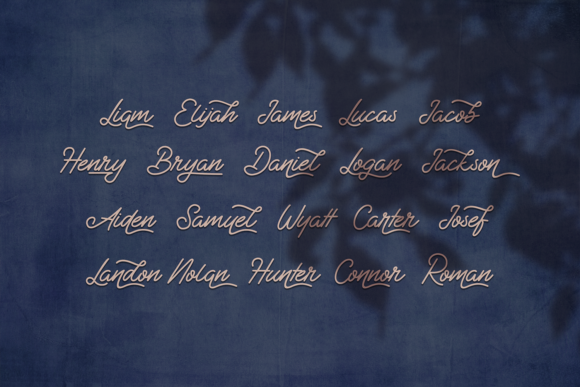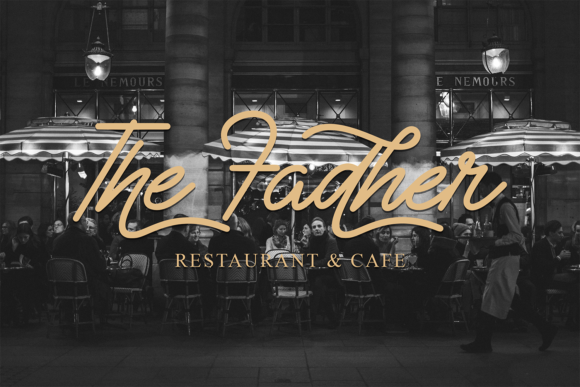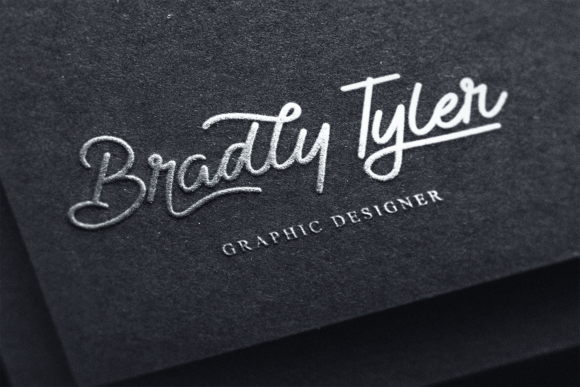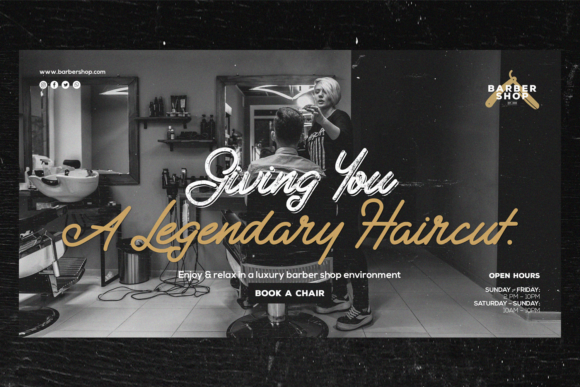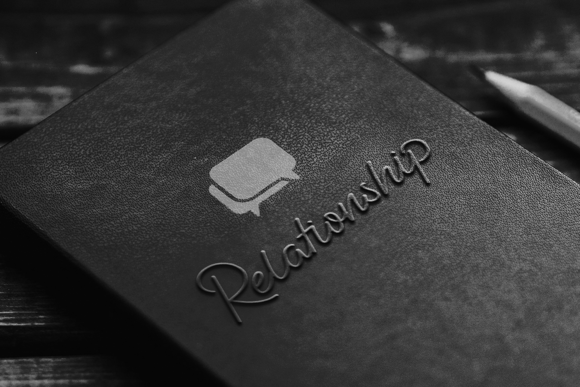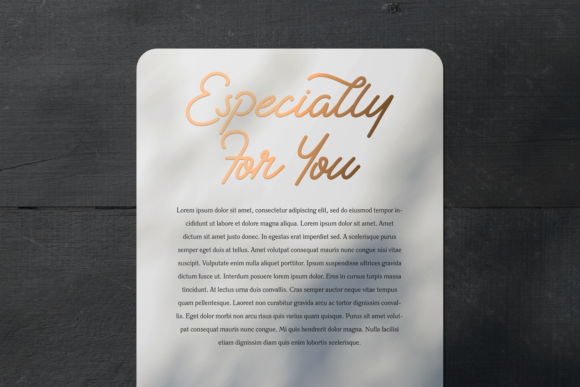
Introducing Badbad Font: The Ultimate Retro Script Font for Your Creative Projects
Are you a designer or crafter looking for a stylish and unique font to add a personal touch to your creations? Look no further than Badbad Font, a stunning retro script font that’s perfect for a variety of projects. In this article, we’ll dive into the features and benefits of Badbad Font, and explore how it can elevate your designs to the next level.
What is Badbad Font?
Badbad Font is a beautifully crafted retro script font that’s designed to add a touch of elegance and sophistication to your designs. With its flowing lines and cursive strokes, this font is perfect for creating eye-catching and stylish text that stands out from the crowd.
Key Features of Badbad Font
- Stylish and Retro Design: Badbad Font boasts a unique and stylish retro design that’s sure to turn heads. Its classic script style is perfect for creating vintage-inspired designs that evoke a sense of nostalgia and romance.
- Handwritten Touch: This font is designed to mimic the look and feel of handwritten text, making it perfect for adding a personal touch to your designs. Whether you’re creating wedding invitations, thank you cards, or greeting cards, Badbad Font is the perfect choice.
- Highly Versatile: Badbad Font is incredibly versatile and can be used for a wide range of design projects, including logos, business cards, quotes, and more.
- Easily Readable: Despite its ornate design, Badbad Font is surprisingly easy to read, making it perfect for body text as well as headings and titles.
Perfect for Wedding and Party Designs
Badbad Font is a popular choice for wedding and party designs, and for good reason. Its elegant and sophisticated design makes it perfect for creating stunning wedding invitations, save-the-date cards, and thank you cards. It’s also a great choice for party invitations, flyers, and other celebratory designs.
| Font Name | Badbad Font |
| Author | DYSA Studio |
Badbad Font is a stunning retro script font that’s perfect for designers and crafters looking to add a touch of elegance and sophistication to their creations. With its stylish design, handwritten touch, and high versatility, this font is sure to become a favorite in your design arsenal. Whether you’re creating wedding invitations, logos, or social media graphics, Badbad Font is the perfect choice.